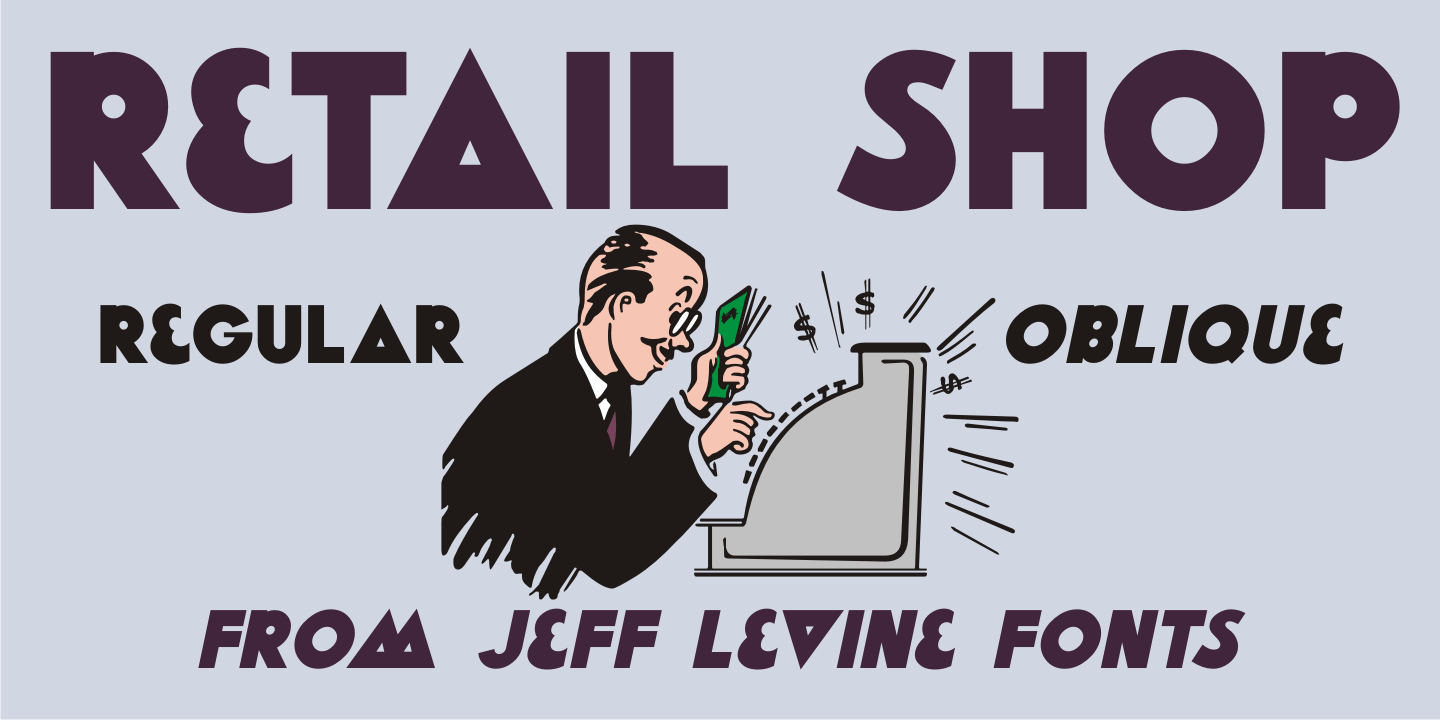
Retail Shop
Vintage New York neon signage alongside the landmark Dubrow's Cafeteria [probably circa the 1940s] of the words "retail shop" inspired the namesake digital type design.
Retail Shop JNL is a bold and somewhat eccentric Art Deco font with varying widths and unusual character forms available in both regular and oblique versions.